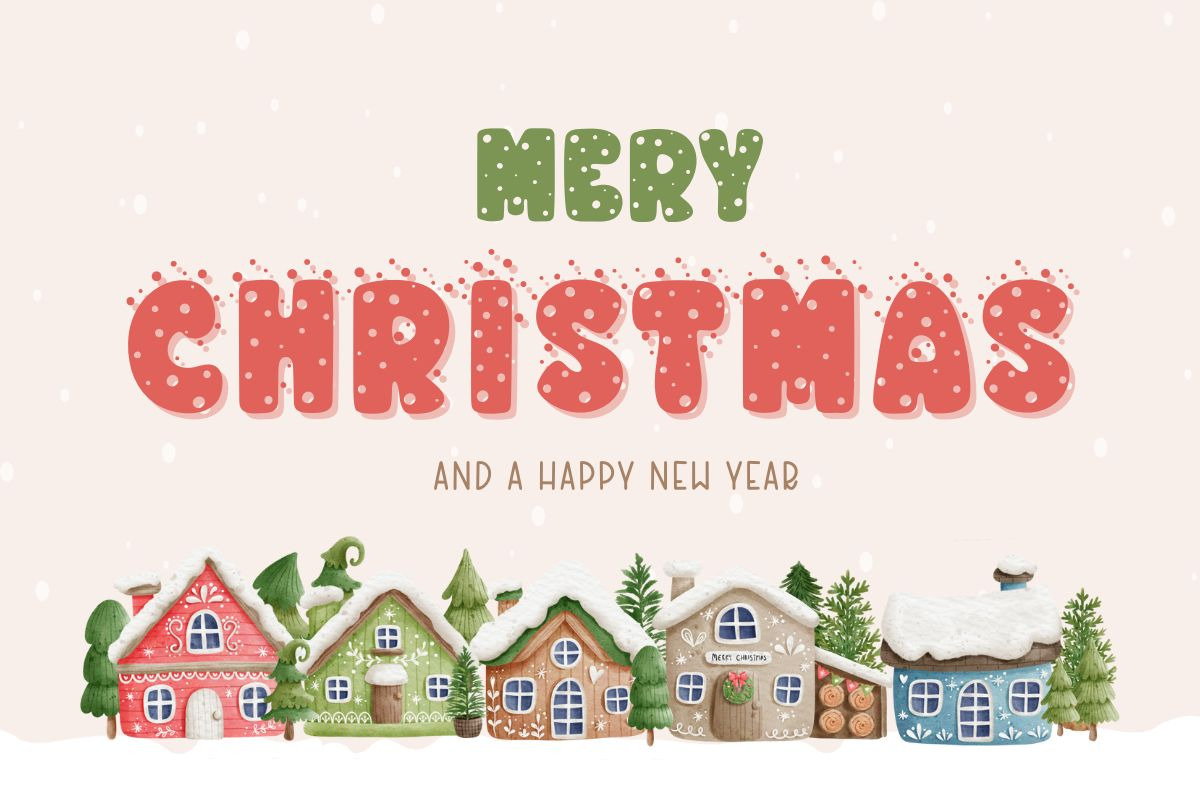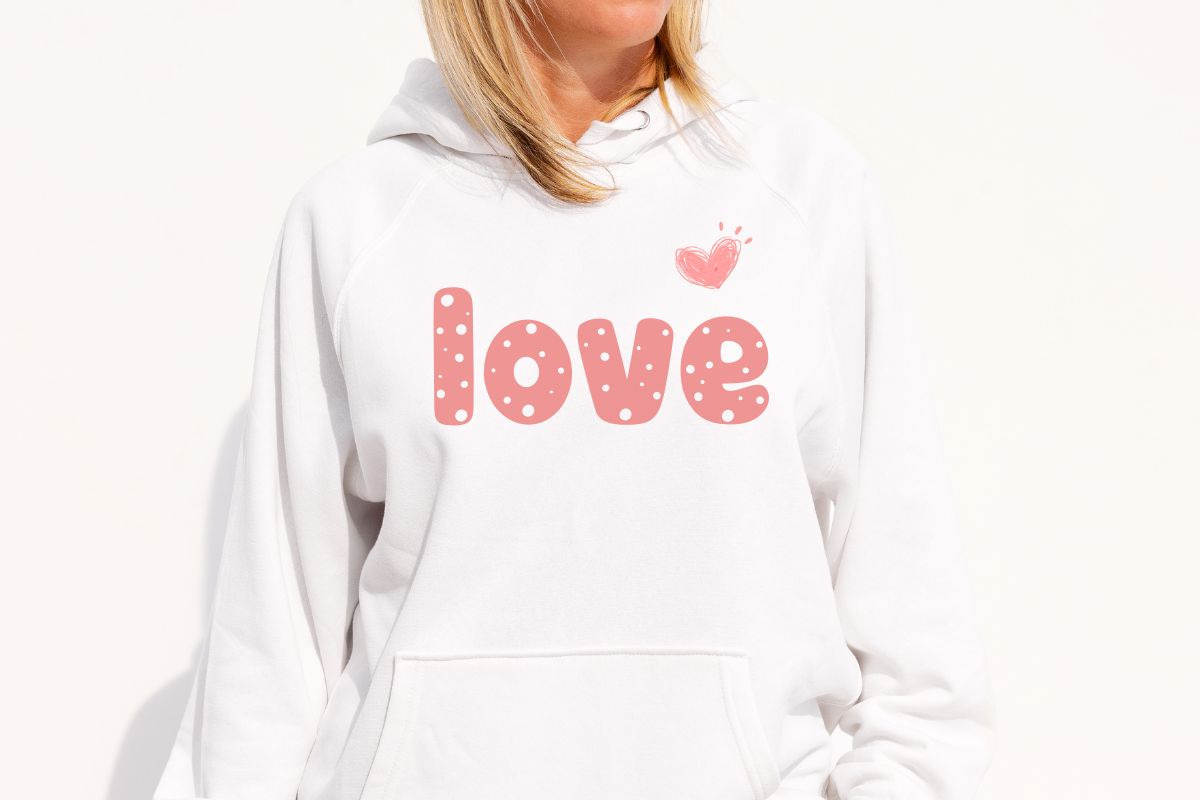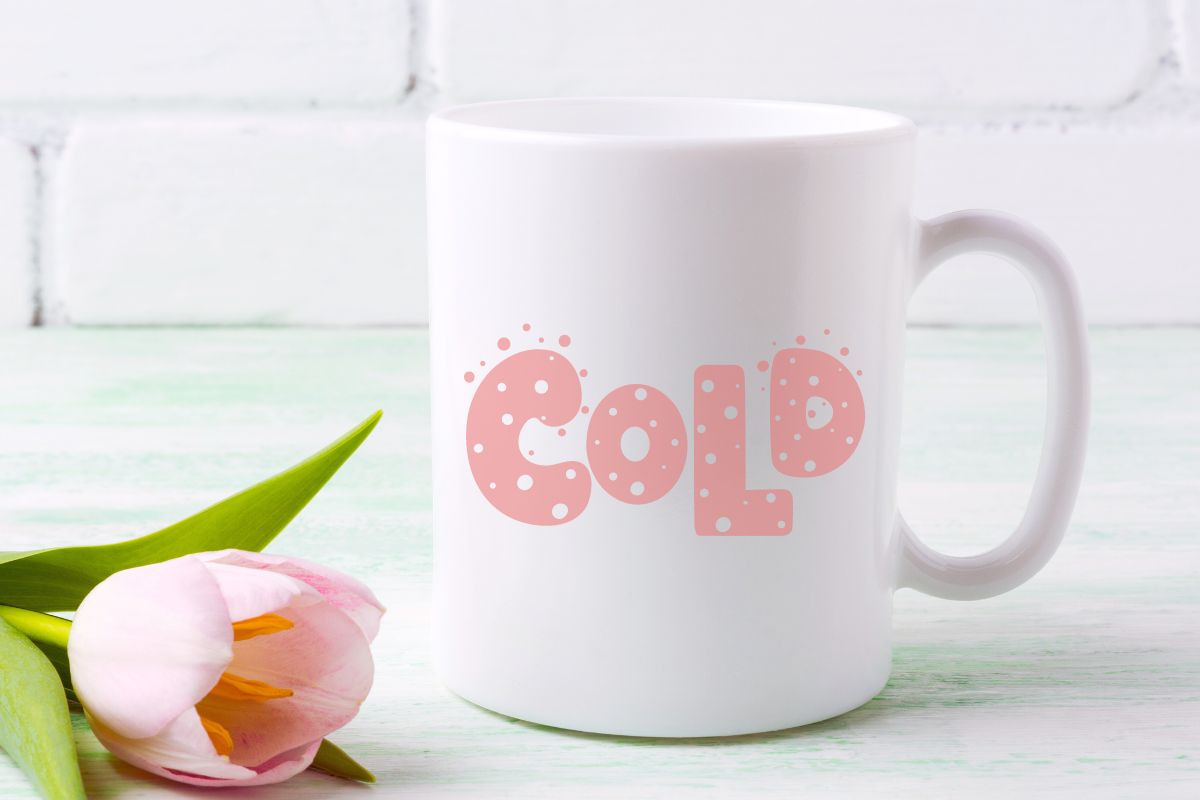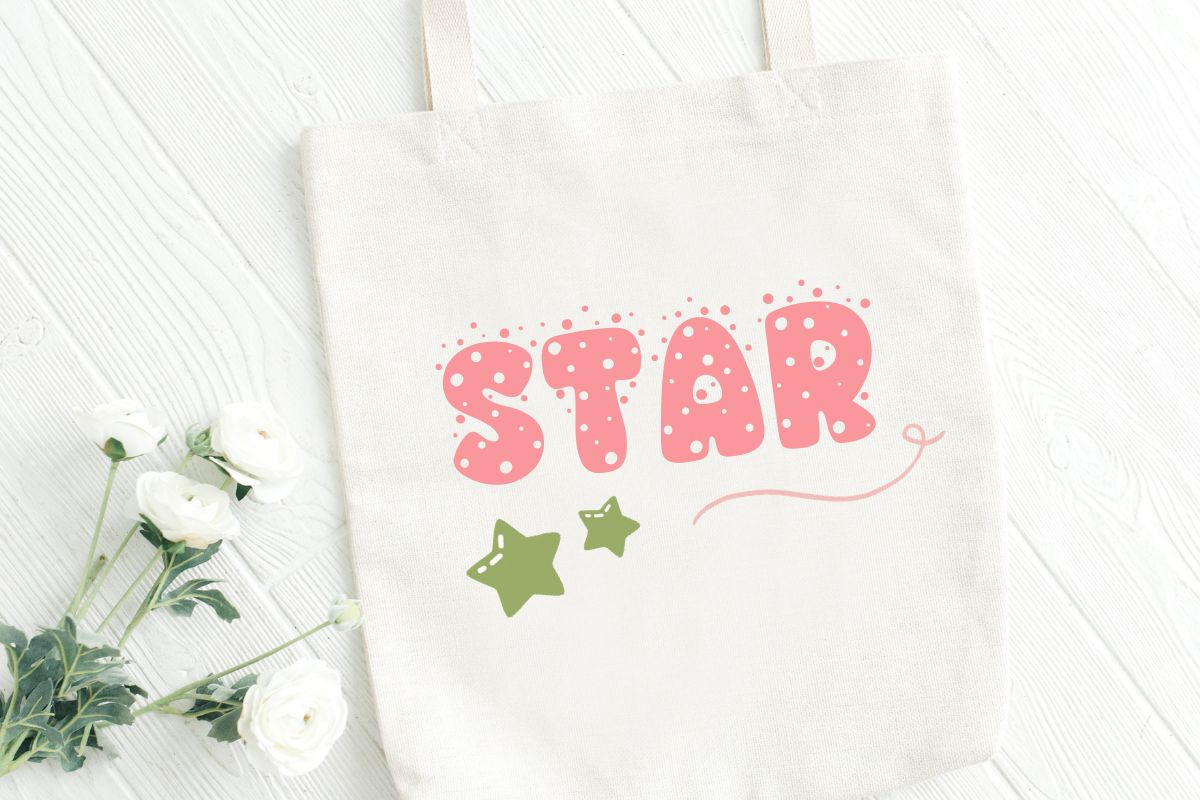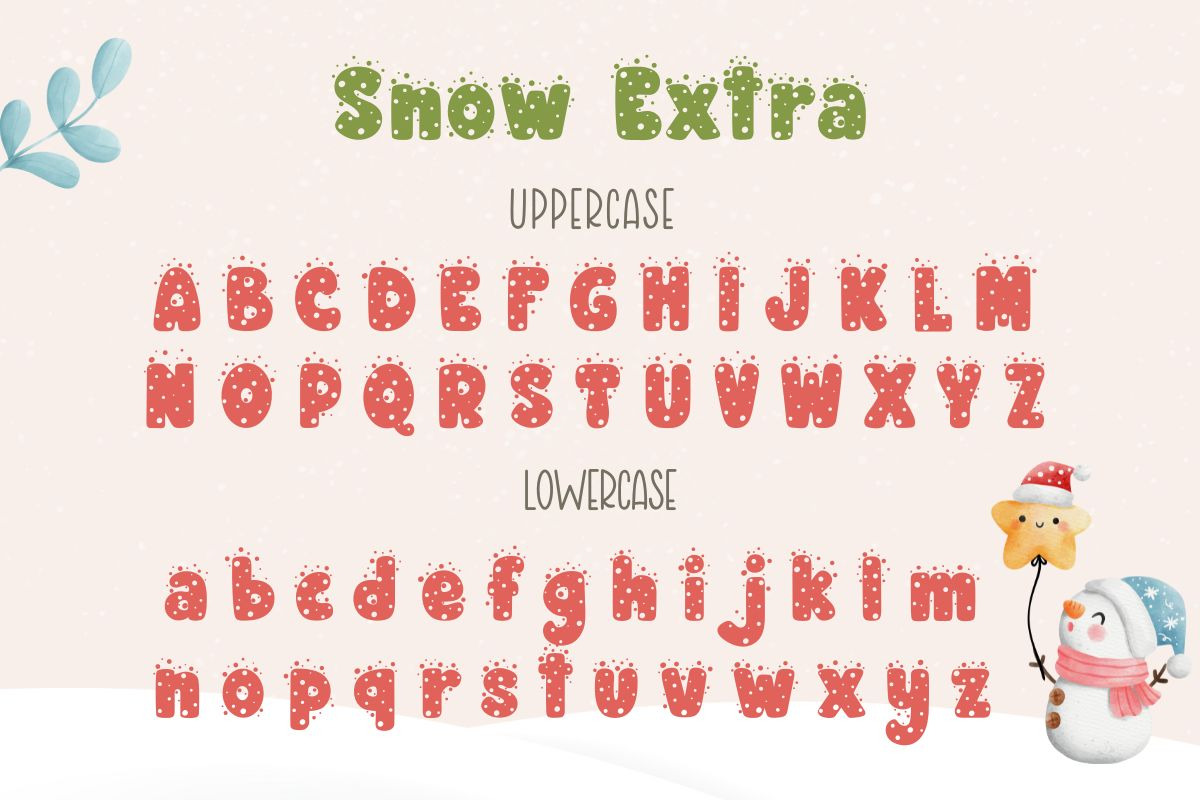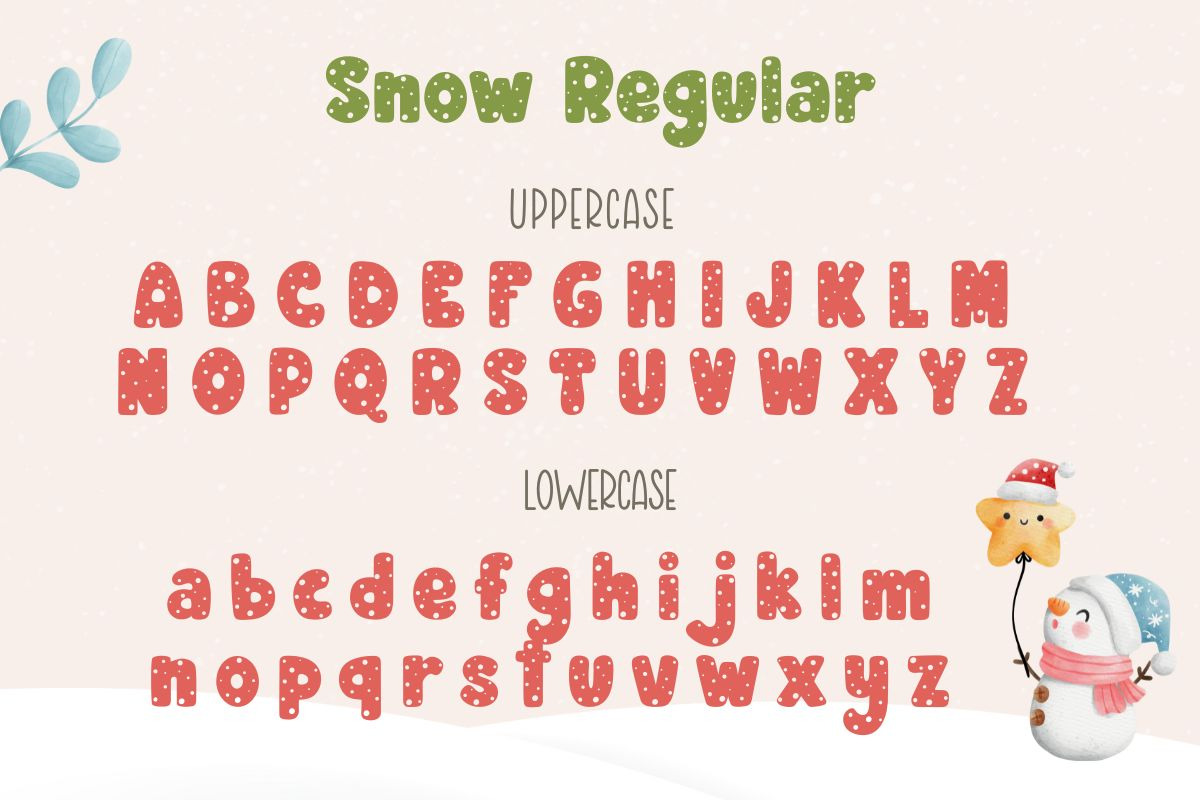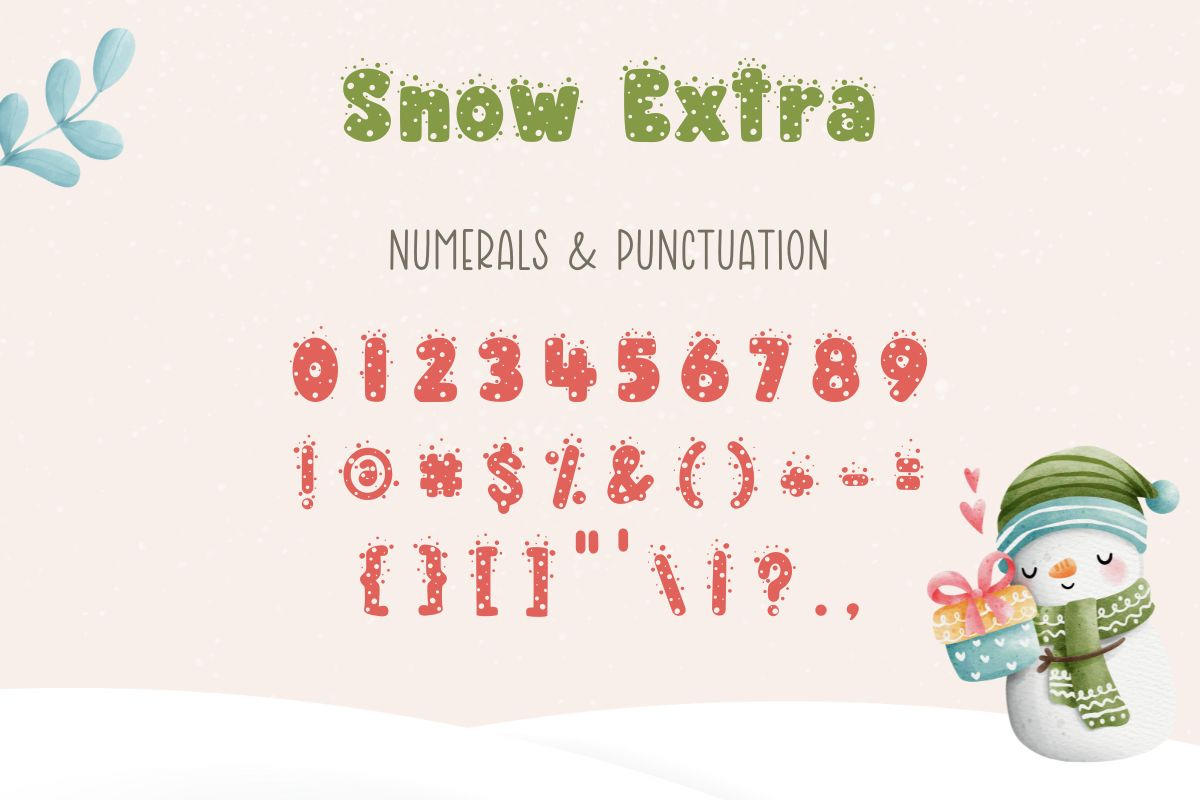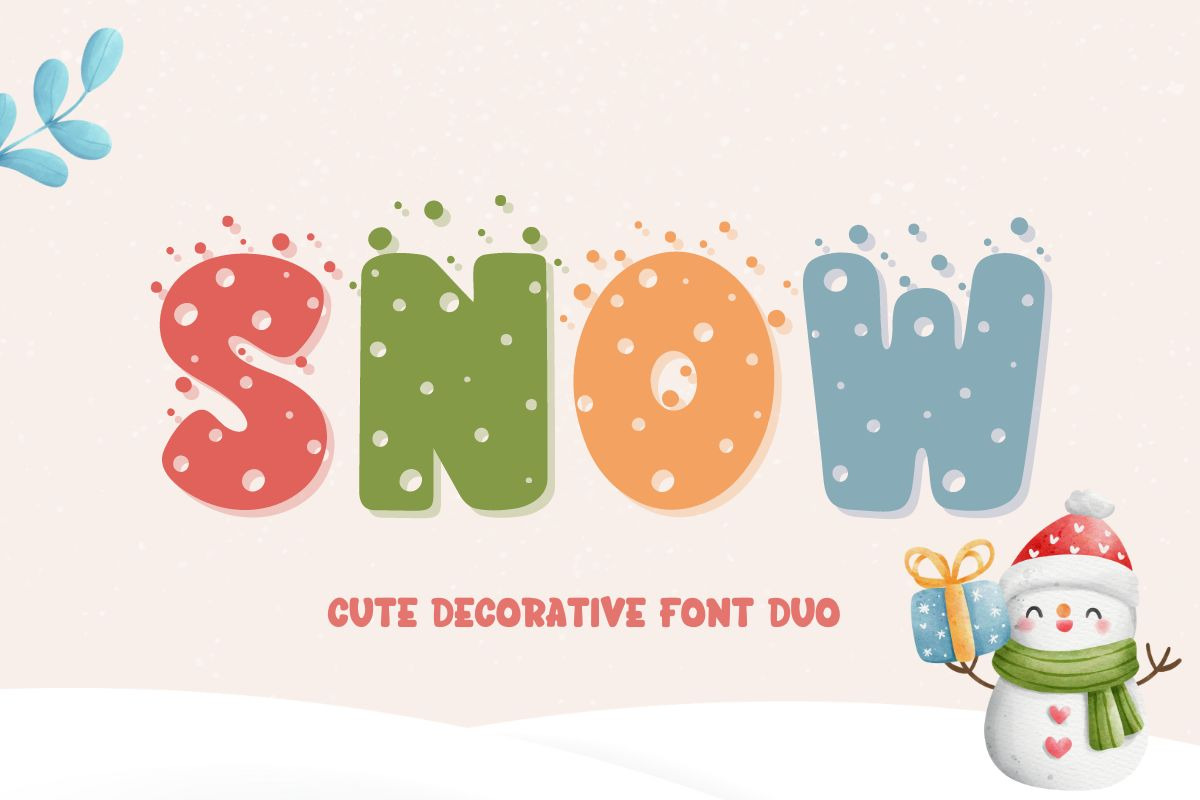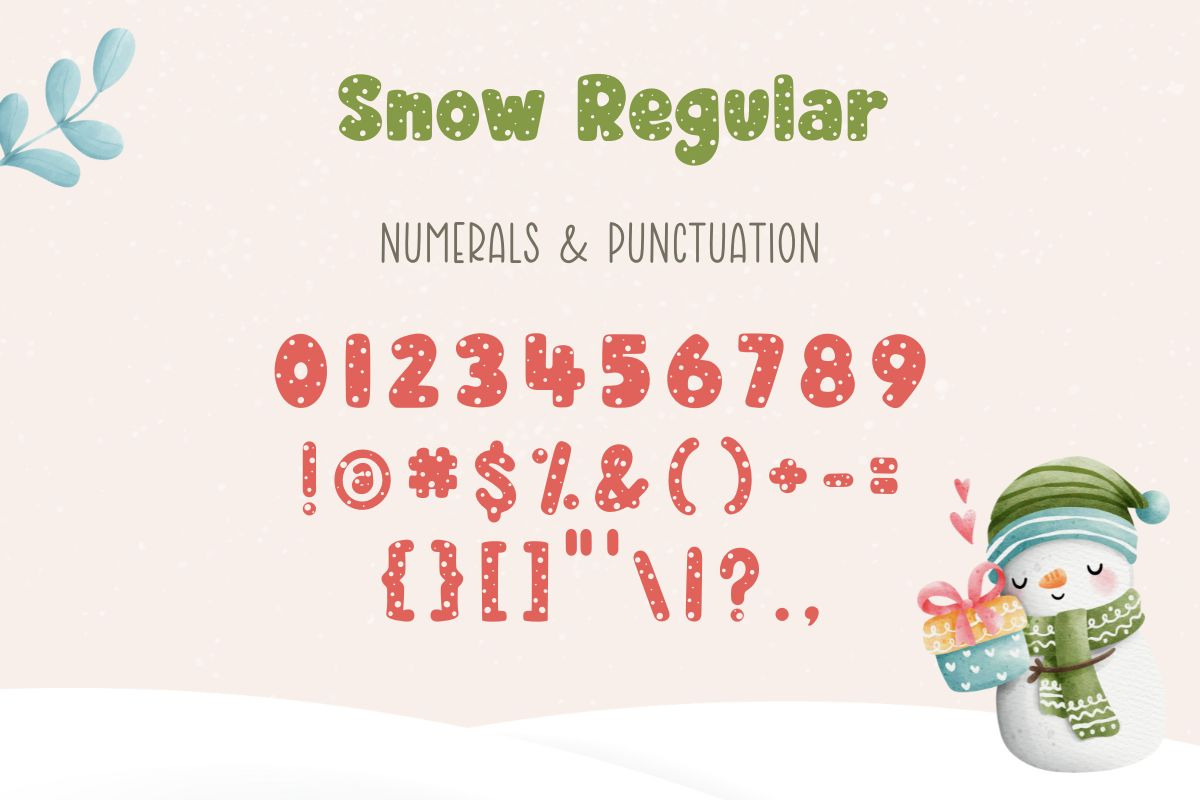
Snow | Cute Font Duo
Snow is a cute decorative Duo font. This font has a special design with snow on top of the letters making it look more unusual and interesting. You can use it to create Christmas cards. wedding invitation card Decorate bags, drinking glasses, and beautiful stationery. Post on social media and so much more!